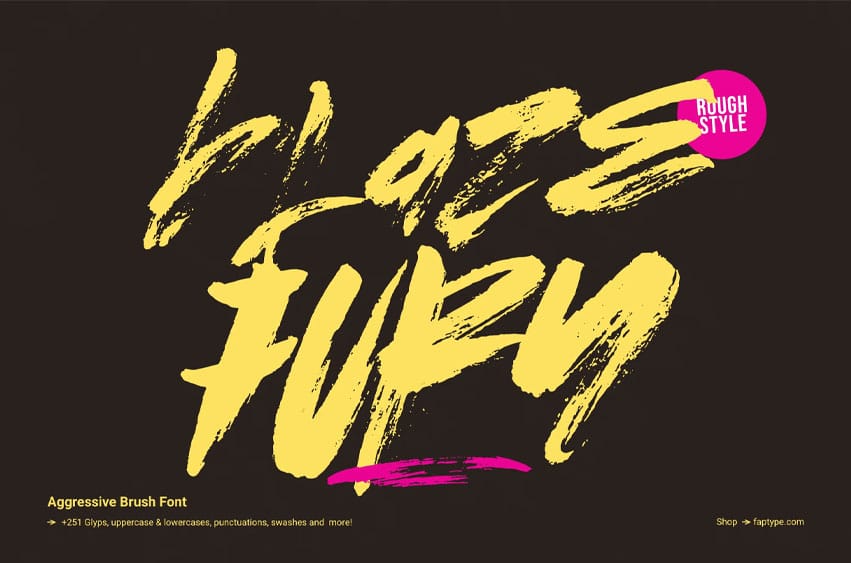
Blaze Fury Font
Blaze Fury Font bring bold energy and a raw handmade feel to your creative projects with Blaze Fury, an aggressive brush font designed for strong and expressive typography.
This font combines bold letterforms with rough edges and dynamic brush strokes. The result is a powerful display style that feels energetic, imperfect, and authentic. Because of its expressive character, Blaze Fury works especially well when typography needs to become a strong visual element.
Bold & Aggressive Typography
Blaze Fury features a rugged brush texture that gives each letter a distinctive handmade appearance. The irregular strokes add movement and personality, while the bold structure keeps the lettering clear and impactful.
Inspired by rock, punk, street culture, grunge, and raw graphic aesthetics, this font is ideal for projects that require a stronger visual attitude. It can also work beautifully in minimal compositions when used as a large headline or statement element.
Perfect for Creative Projects
Use Blaze Fury for posters, album covers, logos, branding, headlines, social media graphics, packaging, labels, badges, advertising artwork, promotional graphics, and other display-focused projects.
For a more balanced composition, try combining the font with a clean sans serif. The contrast between the rough brush lettering and a simple typeface can create a modern and professional result.
Furthermore, Blaze Fury is versatile enough to work across different creative directions. Whether your project has a rebellious music aesthetic or simply needs an expressive handwritten touch, its bold strokes can add personality without requiring additional effects or textures.
Raw, Expressive & Full of Character
The handcrafted appearance gives your typography a natural and energetic quality. Rough edges and varied strokes help avoid an overly polished look, making the lettering feel more spontaneous and expressive.
At the same time, the strong forms make Blaze Fury suitable for prominent text and large-scale compositions. Use it for a powerful title, an eye-catching headline, or a distinctive brand statement.
If you’re looking for an aggressive brush font with a bold personality and authentic handmade character, Blaze Fury is ready to add a raw edge to your next design.
Make it bold. Make it raw. Make it Blaze Fury.